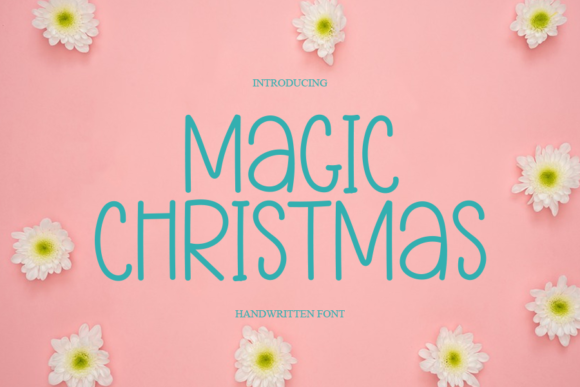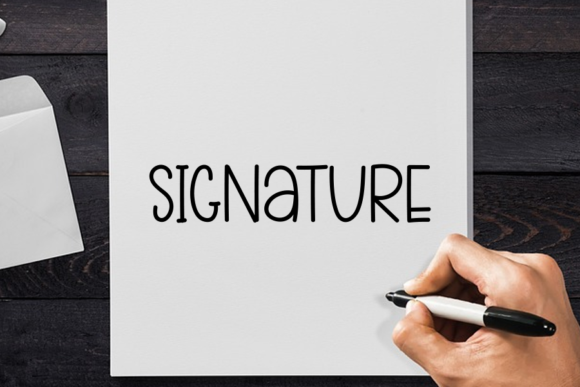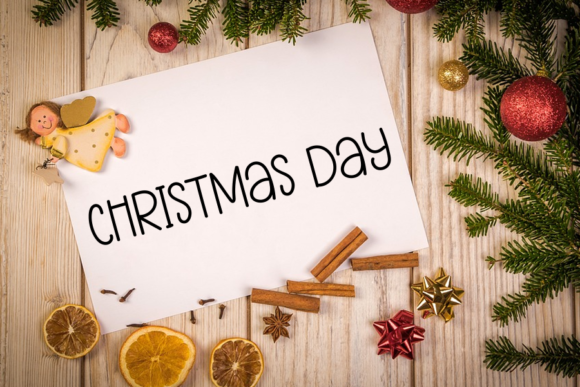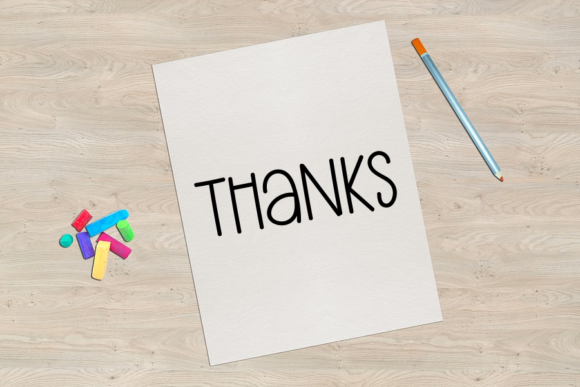
Magic Christmas Font
About Magic Christmas Font
Magic Christmas is a very playful and creative handwritten font. You can add this adaptable font to cards, invitations, wall art, and product printing.